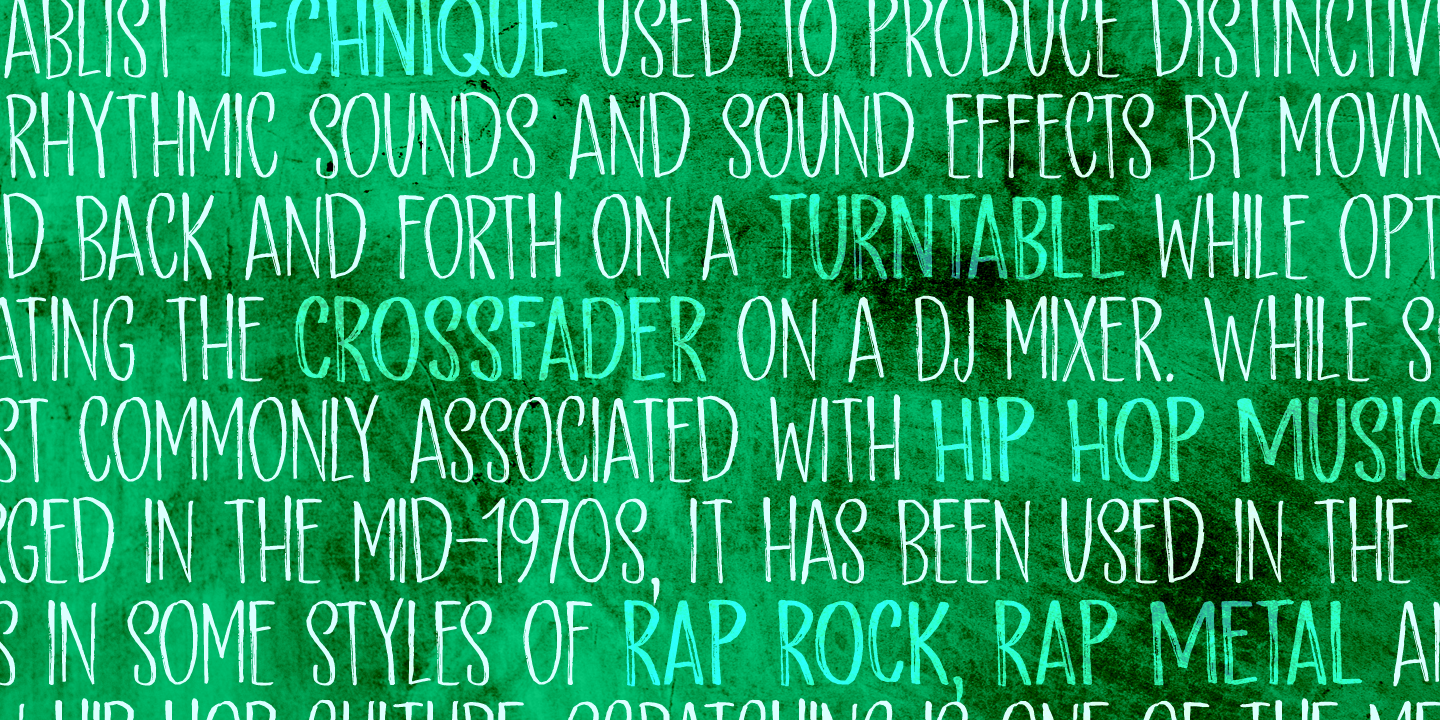
Scratch Up Font Free Download is a bold and edgy display typeface that brings raw energy and a distressed look to any design project. With its rough, hand-drawn aesthetic, this font is ideal for posters, album covers, streetwear branding, graffiti art, and promotional materials that demand a rebellious and dynamic vibe.
The font’s intentionally rough texture and irregular lines create a sense of movement and authenticity, making it stand out in both print and digital formats. Despite its rugged appearance, Scratch Up maintains good readability, allowing designers to use it effectively in headlines and attention-grabbing design elements.
Scratch Up is an excellent choice for designers seeking to infuse their projects with a gritty, energetic, and urban aesthetic that captures immediate attention.